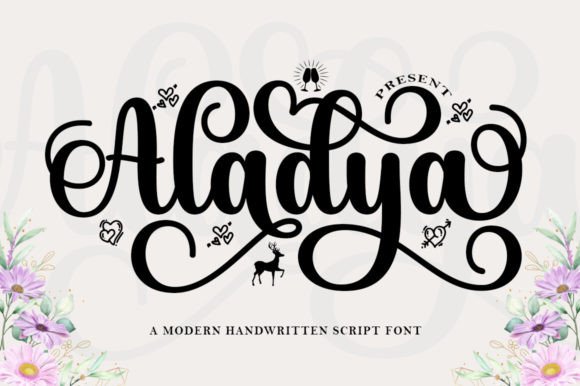
Introducing Aladya Font: Elevate Your Designs with Elegance and Sophistication
In the world of typography, fonts play a crucial role in conveying the tone and personality of a design. Among the numerous fonts available, Aladya Font stands out as a stunning example of elegance and sophistication. This beautiful handwritten font is designed to add a touch of class and refinement to any project, making it perfect for designers, artists, and crafty enthusiasts.
What Makes Aladya Font So Special?
Aladya Font is an elegant and flowing handwritten font that boasts a range of features that set it apart from other fonts. Its varied baselines, smooth lines, gorgeous glyphs, and stunning alternatives work together to create a truly unique and captivating visual experience.
Classy Calligraphic Influence
Aladya Font maintains a classy calligraphic influence, evoking the feeling of traditional calligraphy. Its smooth, flowing lines and elegant curves are reminiscent of handwritten scripts, adding a touch of warmth and personality to any design.
At the same time, Aladya Font also feels contemporary and fresh, making it perfect for modern designs that require a touch of sophistication. Whether you’re working on a branding project, a wedding invitation, or a packaging design, Aladya Font is sure to impress.
Key Features of Aladya Font
- Varied Baselines: Aladya Font features varied baselines that add a touch of elegance and sophistication to any design.
- Smooth Lines: The font’s smooth lines and curves create a beautiful, flowing effect that’s perfect for designs that require a touch of refinement.
- Gorgeous Glyphs: Aladya Font includes a range of gorgeous glyphs that add a touch of personality and whimsy to any design.
- Stunning Alternatives: The font also features stunning alternatives that allow you to experiment with different styles and variations.
Why Choose Aladya Font?
With so many fonts available, why choose Aladya Font? Here are just a few reasons why this font stands out:
Unparalleled Elegance
Aladya Font is the epitome of elegance and sophistication. Its refined lines, curves, and glyphs work together to create a truly stunning visual experience.
Whether you’re working on a high-end branding project or a beautiful wedding invitation, Aladya Font is sure to impress.
Versatility
Aladya Font is incredibly versatile, making it perfect for a wide range of design projects. From packaging designs to social media graphics, this font can be used in countless ways.
Its flexibility also makes it a great choice for designers who want to experiment with different styles and variations.
Easy to Use
Aladya Font is easy to use, even for designers who are new to typography. Its clean lines and simple glyphs make it easy to read and work with.
Plus, the font comes with a range of alternatives and glyphs, making it easy to experiment with different styles and variations.
How to Use Aladya Font in Your Designs
Now that you’ve fallen in love with Aladya Font, here’s how to use it in your designs:
Branding Projects
Aladya Font is perfect for branding projects that require a touch of elegance and sophistication. Use it for logos, business cards, and letterheads to create a cohesive and refined visual identity.
Wedding Invitations
Aladya Font is also perfect for wedding invitations, adding a touch of romance and whimsy to your designs. Use it for save-the-date cards, wedding programs, and thank-you notes.
Packaging Designs
Aladya Font can also be used in packaging designs, adding a touch of elegance and sophistication to your products. Use it for labels, tags, and packaging materials to create a beautiful and eye-catching design.
In conclusion, Aladya Font is a stunning example of elegance and sophistication. Its varied baselines, smooth lines, gorgeous glyphs, and stunning alternatives make it perfect for designers, artists, and crafty enthusiasts.
Whether you’re working on a branding project, a wedding invitation, or a packaging design, Aladya Font is sure to impress. So why wait? Fall in love with this font and take your projects to the highest level!